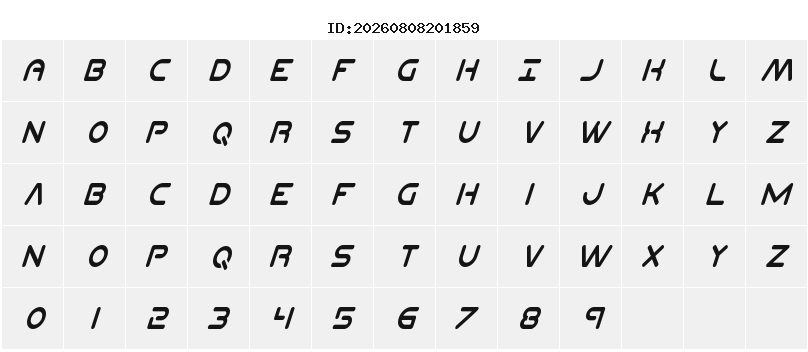
Planet N Compact Condensed Italic Preview
• Font Name: Planet N Compact Condensed Italic
• Font Style: Condensed Italic
• Full Font Name: Planet N Compact Condensed Italic
About Planet N Compact Condensed Italic.ttf
Planet N Compact Condensed Italic.ttf is a modern, elegant sans-serif font designed for ultimate readability and visual harmony. Perfect for branding, headlines, web design, and print materials.